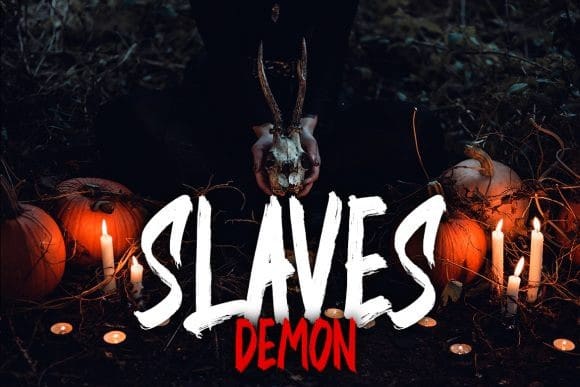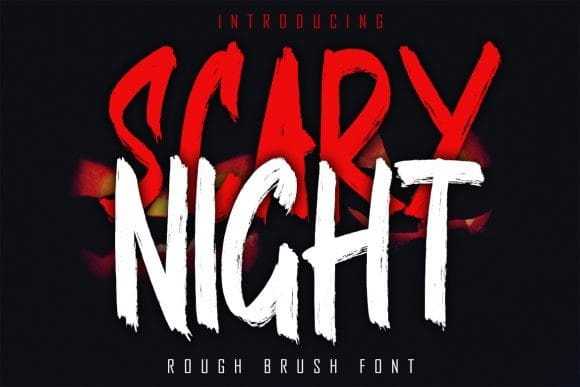
Scary Night Brush Font
Scary Night Brush Font is a rough brushed display font. This font reads as strong, confident, and dynamic and can add tons of urban character to your designs.